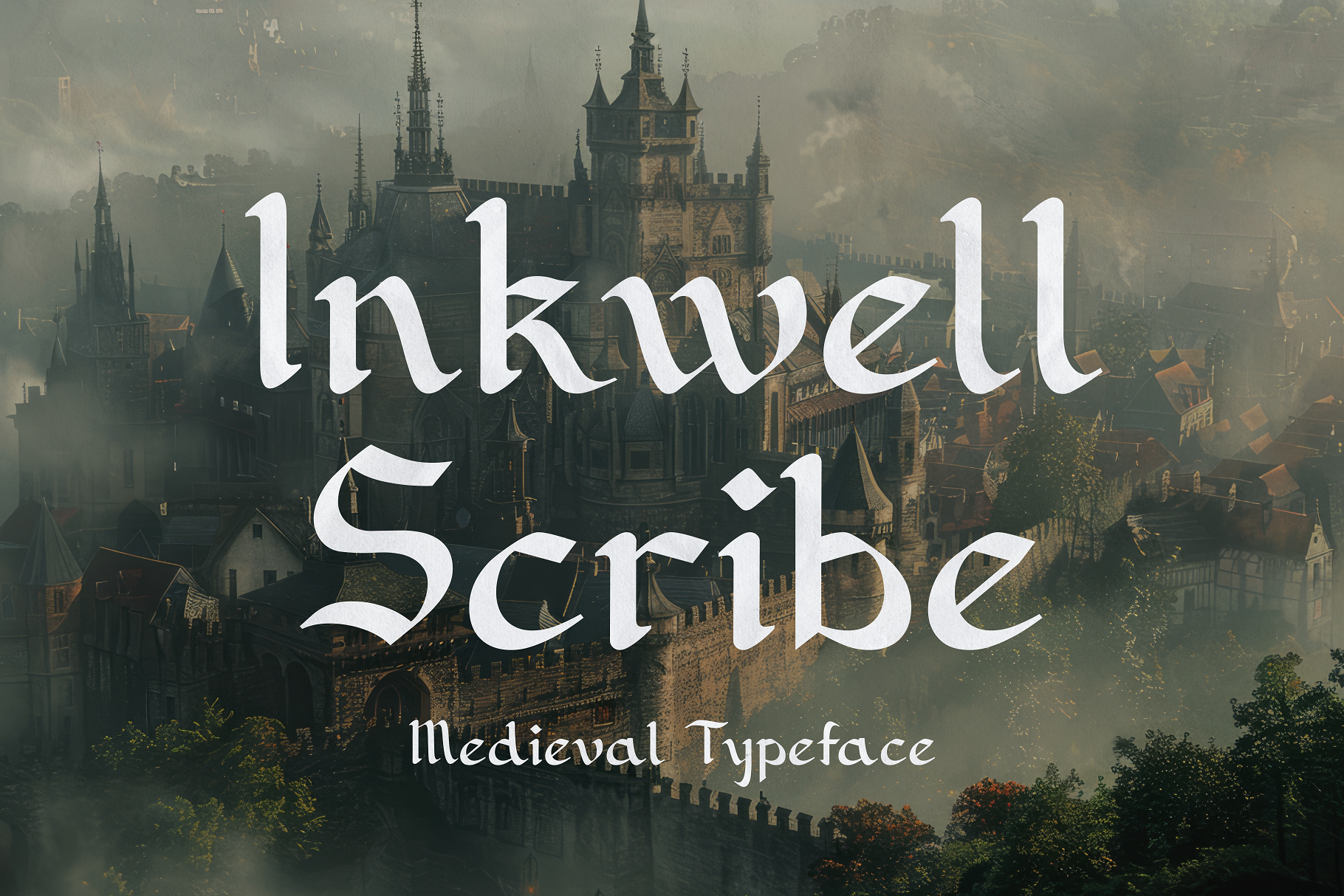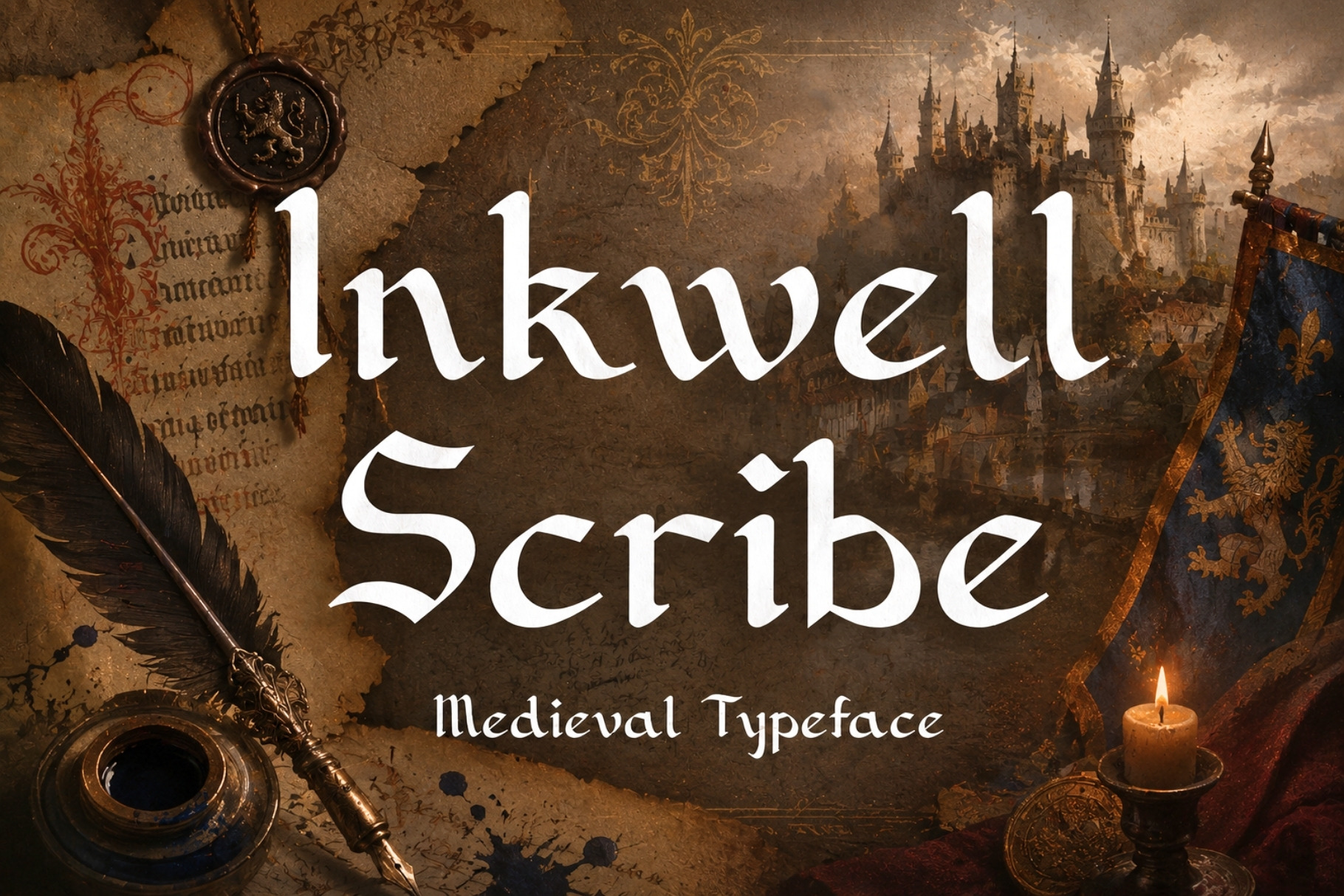
Inkwell Scribe - Medieval Typeface
Step into the enchanting world of the Middle Ages with Inkwell Scribe, a meticulously crafted typeface that captures the essence of medieval manuscripts and calligraphy. Perfect for bringing a touch of historical elegance to your modern designs, Inkwell Scribe weaves the artistry and tradition of medieval script into every character.
Medieval Inspiration: Each letter in Inkwell Scribe is inspired by the intricate, hand-drawn scripts of medieval manuscripts, evoking a sense of history and tradition.
Calligraphic Elegance: With its flowing strokes and ornate details, Inkwell Scribe adds a touch of sophistication and artistry to any text.
Versatile Application: Ideal for branding, book covers, invitations, posters, and any project that requires a historical or fantasy-themed aesthetic.
High Readability: Despite its ornate design, Inkwell Scribe maintains excellent legibility, ensuring your text is both beautiful and easy to read.
Ideal For:
Historical Themes: Perfect for projects that need a touch of medieval charm, from historical novels to themed events.
Fantasy Creations: Enhance your fantasy novels, games, and artwork with a typeface that transports readers to another time.
Elegant Invitations: Create unforgettable invitations for weddings, parties, and special events with a typeface that speaks of timeless elegance.
Branding and Logos: Give your brand a unique, historical twist that stands out with sophistication and style.
Print and Editorial Design: Add a layer of historical depth to magazines, brochures, and other printed materials.
Why Choose Inkwell Scribe?
Inkwell Scribe isn’t just a typeface; it’s a journey into the rich, artistic world of medieval calligraphy. Whether you’re aiming to evoke a sense of history or add a touch of old-world charm to your designs, Inkwell Scribe is the perfect choice.
Discover the beauty of medieval script with Inkwell Scribe Typeface and let your designs tell a story of elegance and tradition.